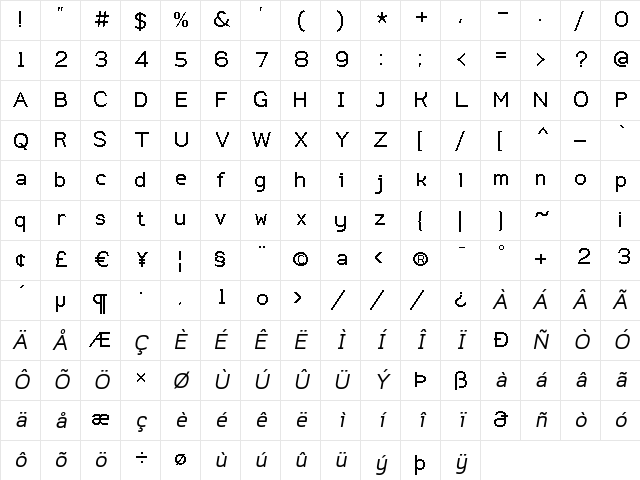
Do Gothic Oblique
Design Context for Do Gothic
Do Gothic takes a clean, functional approach - its unadorned letterforms prioritise legibility and work reliably across screen and print environments. The slanted form adds forward momentum and visual energy.
Font Pairing: Works well alongside a characterful serif or display font that can carry the expressive load while Do Gothic handles the functional copy.
Pro Tip: Use Do Gothic for UI labels, navigation, and short-form body copy where clean legibility is the priority.